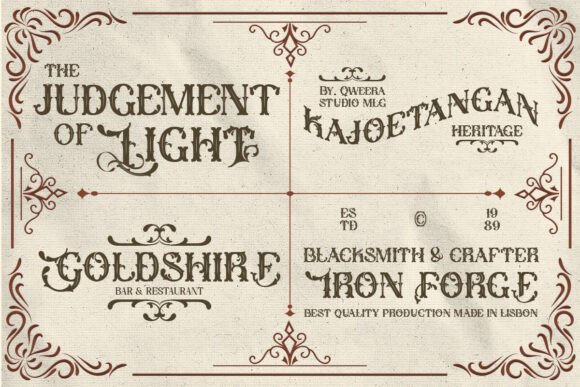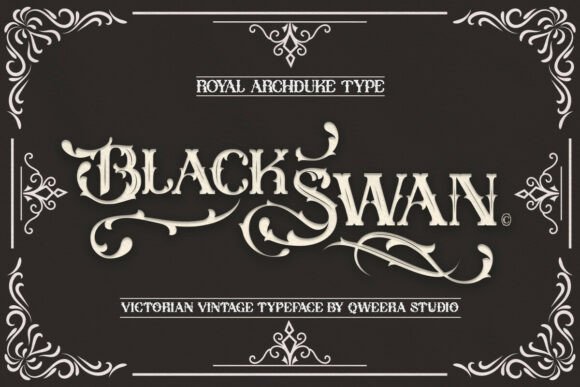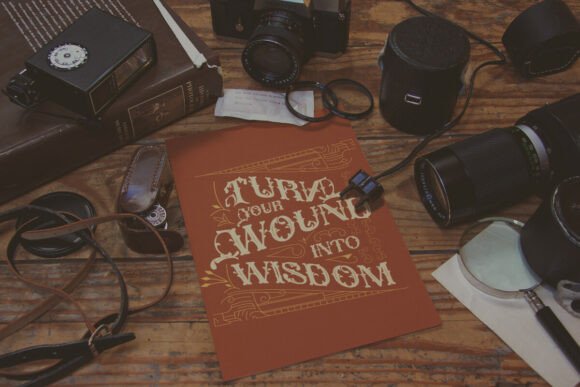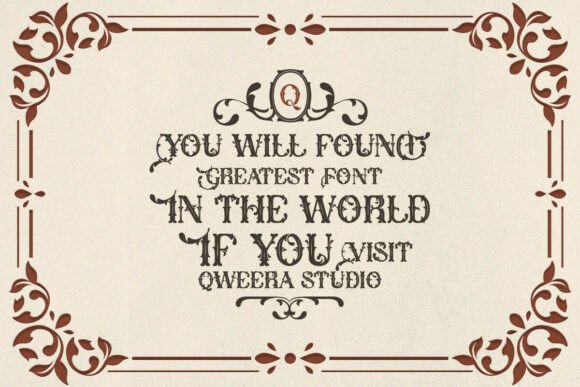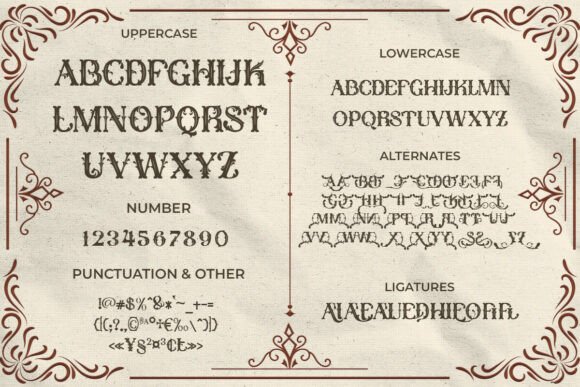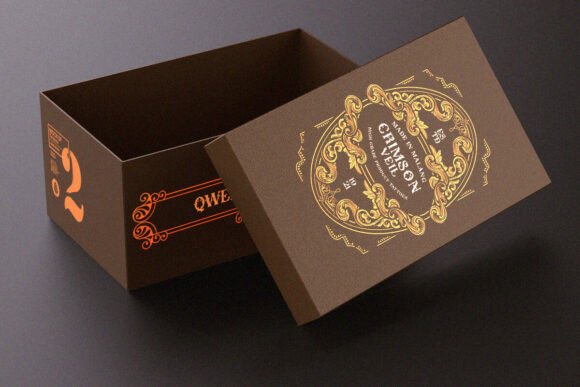
Introduction to Royal Archduke Font Font
Fonts play a crucial role in design, and the Royal Archduke Font font is a typeface that brings both character and versatility to any project. Whether you’re working on a branding project, a website, or a print design, the Royal Archduke Font font offers a unique style that can elevate your work.
| 📌 Font Name | Royal Archduke Font |
| 👤 Author | Qweera Studio |
Royal Archduke – Victorian vintage display font .
Royal Archduke is an exquisite Victorian vintage font designed for elegance and sophistication Featuring alternates and ornaments, this font offers flexibility to create unique and luxurious designs.
Key Features of Royal Archduke Font Font
Why Choose Royal Archduke Font Font?
The Royal Archduke Font font is more than just a typeface – it’s a design tool that helps you communicate your message with style and clarity. Its unique character set and versatile design make it suitable for a wide range of applications, from elegant invitations to bold headlines.
With its carefully crafted letterforms and balanced proportions, the Royal Archduke Font font ensures readability and visual appeal across all mediums.
What makes Royal Archduke Font font special?
The Royal Archduke Font font stands out with its unique design, exceptional readability, and versatility across various design applications.